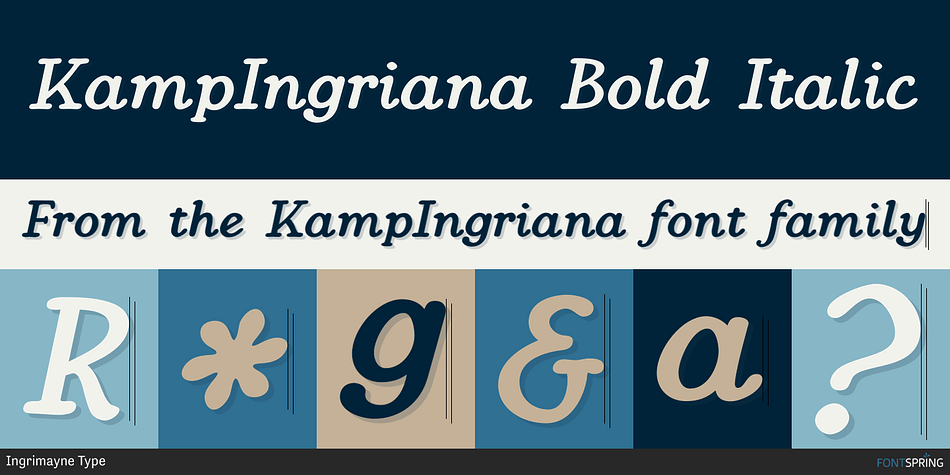
KampIngriana Bold Italic
Designed by Robert Schenk, KampIngriana is a display serif, hand drawn and serif font family. This typeface has ten styles and was published by Ingrimayne Type.
KampIngriana was originally constructed in 1995-6. It was not constructed to meet any specific purpose but out of curiosity, to see what the result would be if two quite different faces were blended. KampIngriana is the offspring of Ingriana, a friendly, soft face, and KampFriendship, which mimics a serifed face drawn by hand.
The original blending had many oddities that I did not clean up until 2020. It originally had five styles: regular, italic, bold, bolditalic, and extrabold. Medium, mediumitalic, semibold, semibolditalic, and extraboldItalic were added in 2022.